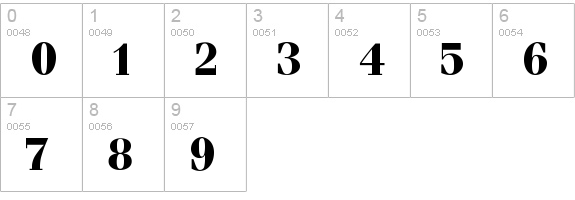
FeniceBold Font Details
FeniceBold is a modern and stylish font that exudes elegance and sophistication. Its bold strokes and clean lines make it perfect for a wide range of design projects, from branding to editorial layouts. The font's versatility allows it to be used for both headers and body text, ensuring a cohesive and polished look throughout your work. One of the best features of FeniceBold is that it is available for free download at FontsMarket.com. This means that you can easily access this beautiful font without any cost, making it a valuable addition to your font library. Whether you are a seasoned designer or just getting started, FeniceBold is a must-have font that will elevate your projects and leave a lasting impression. Download FeniceBold today from FontsMarket.com and unleash your creativity with this stunning and free font.